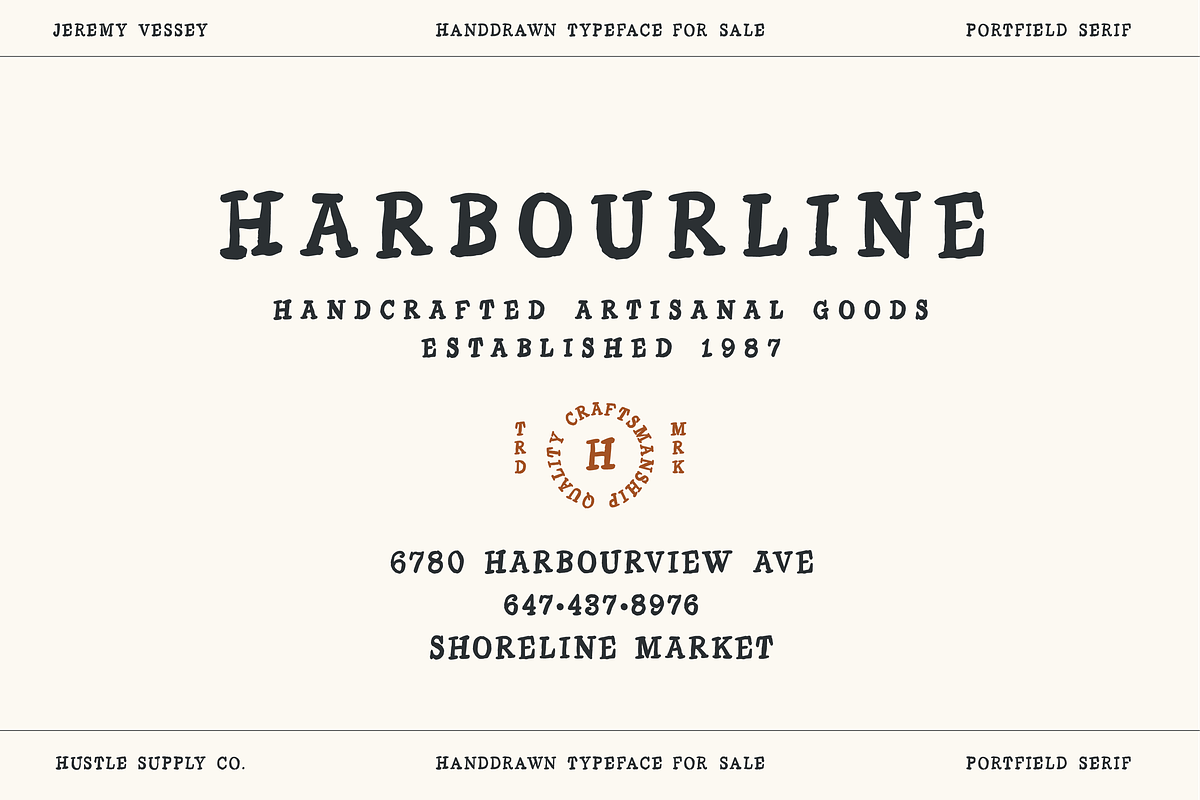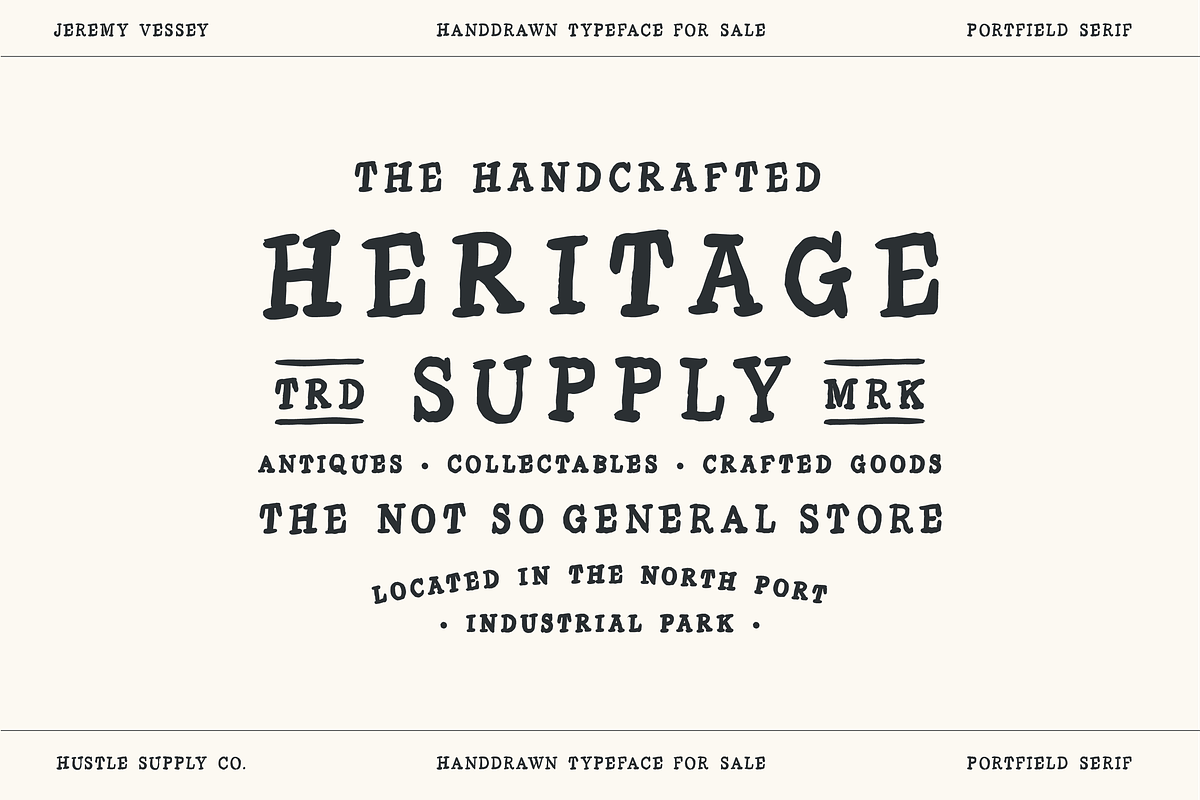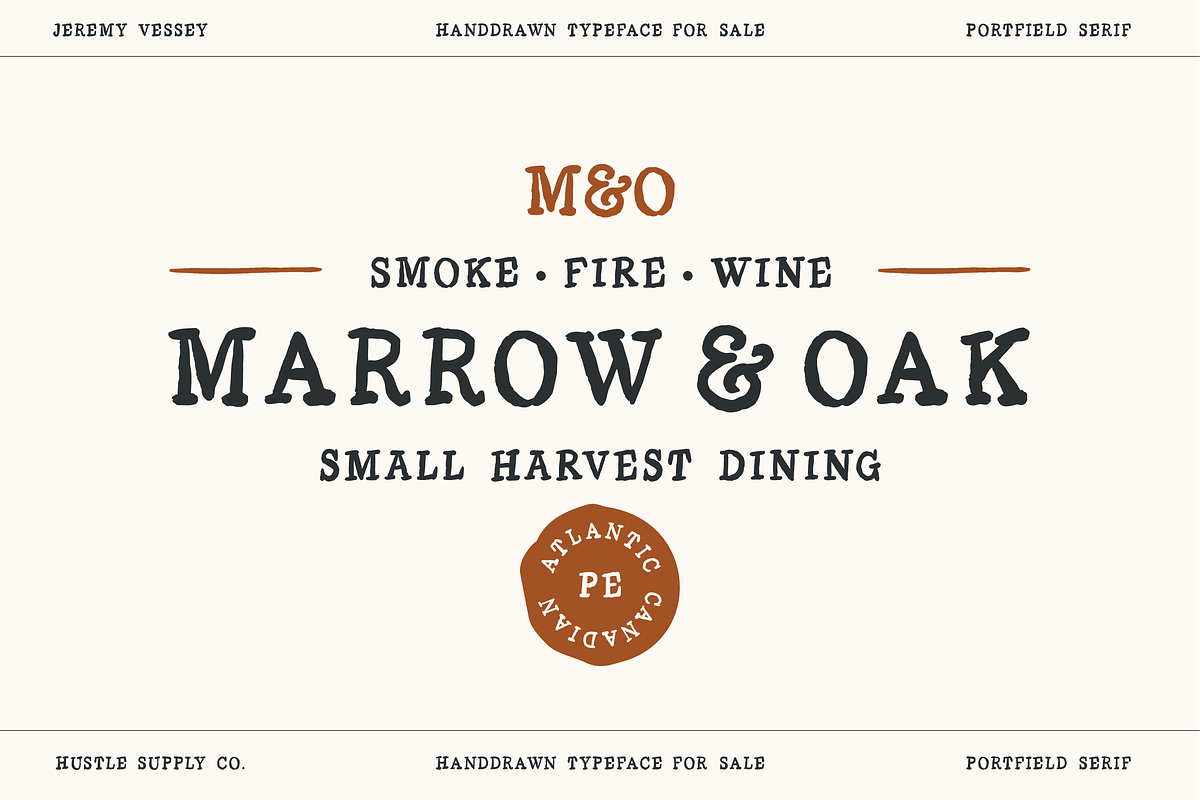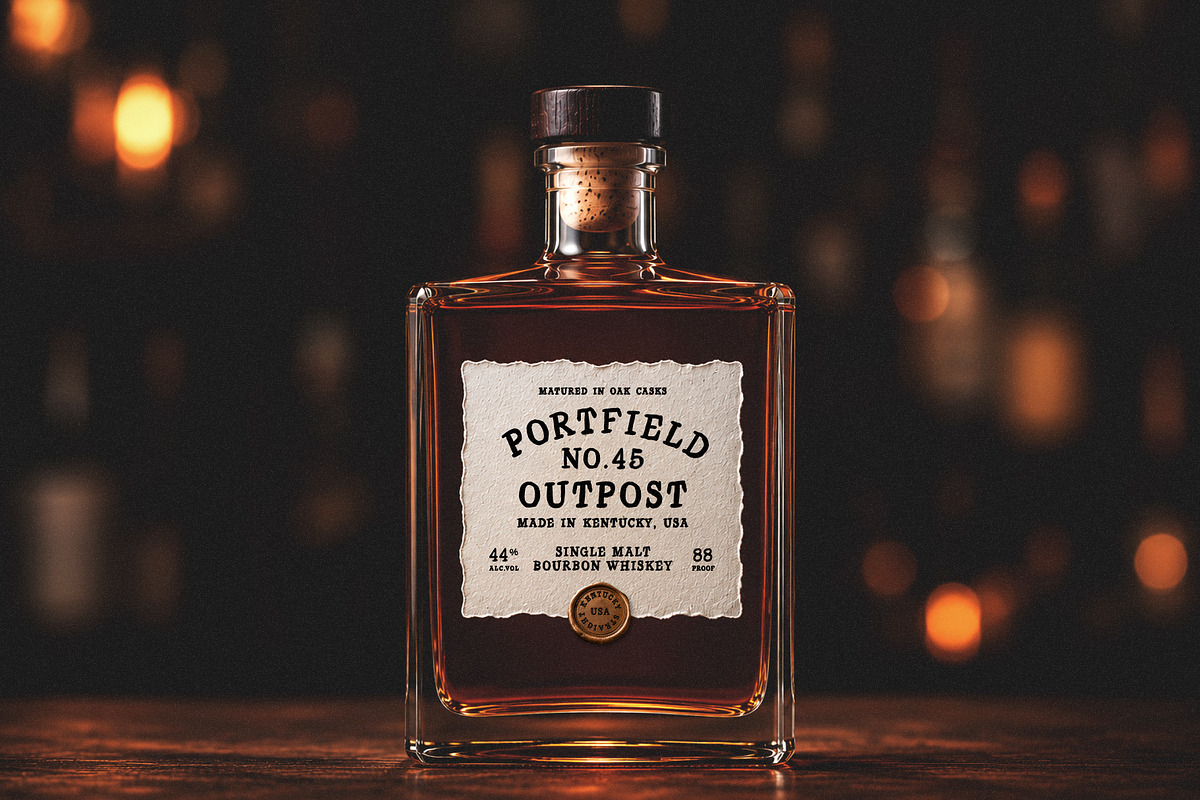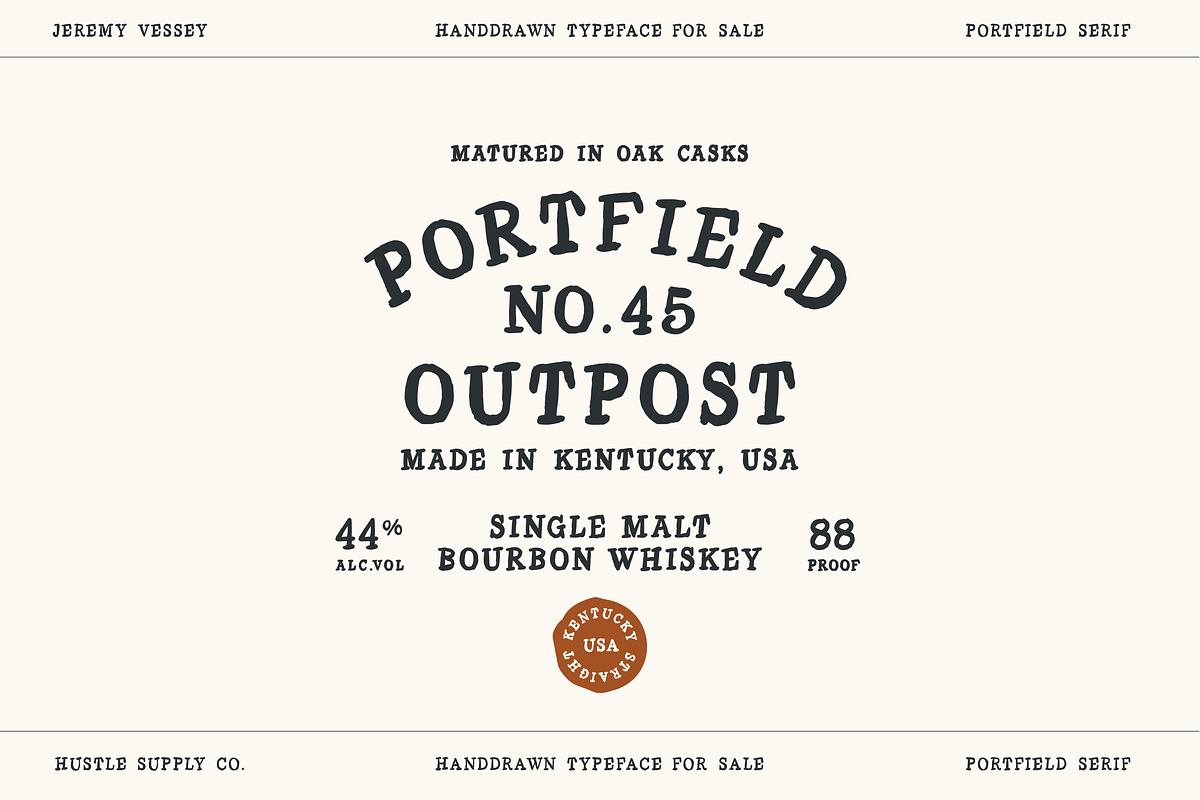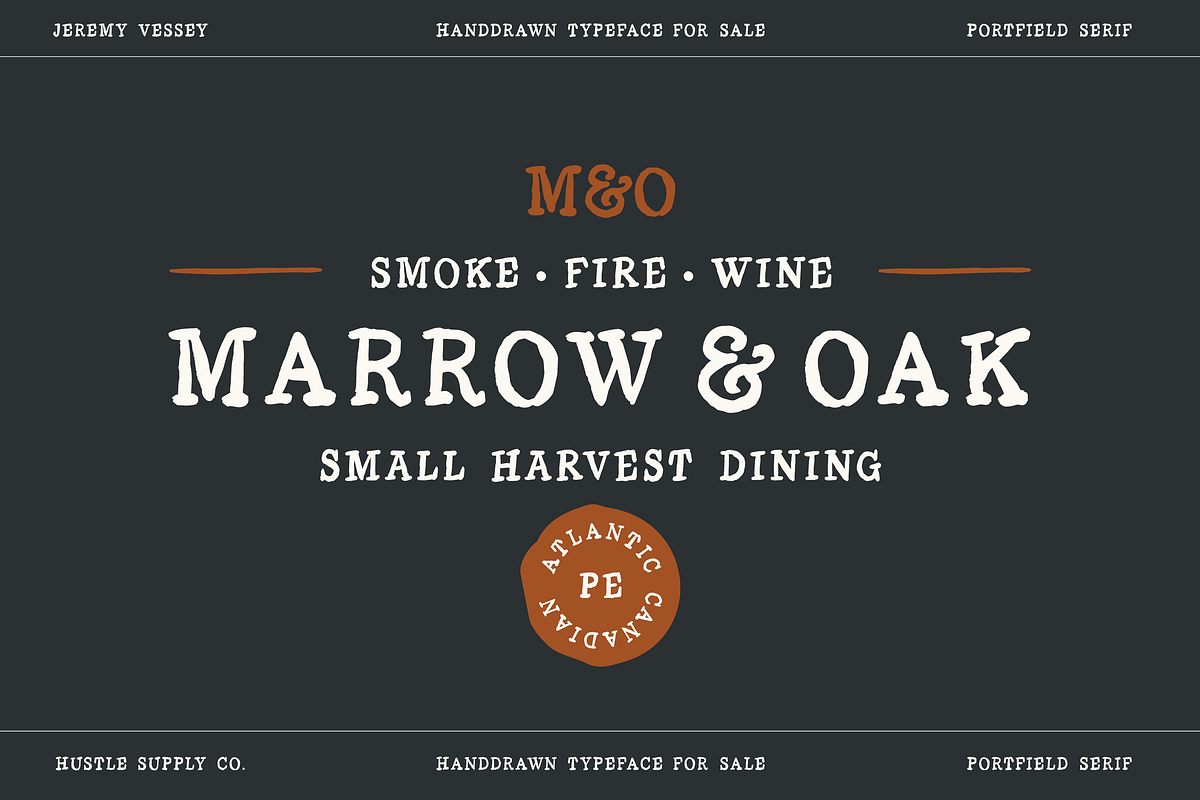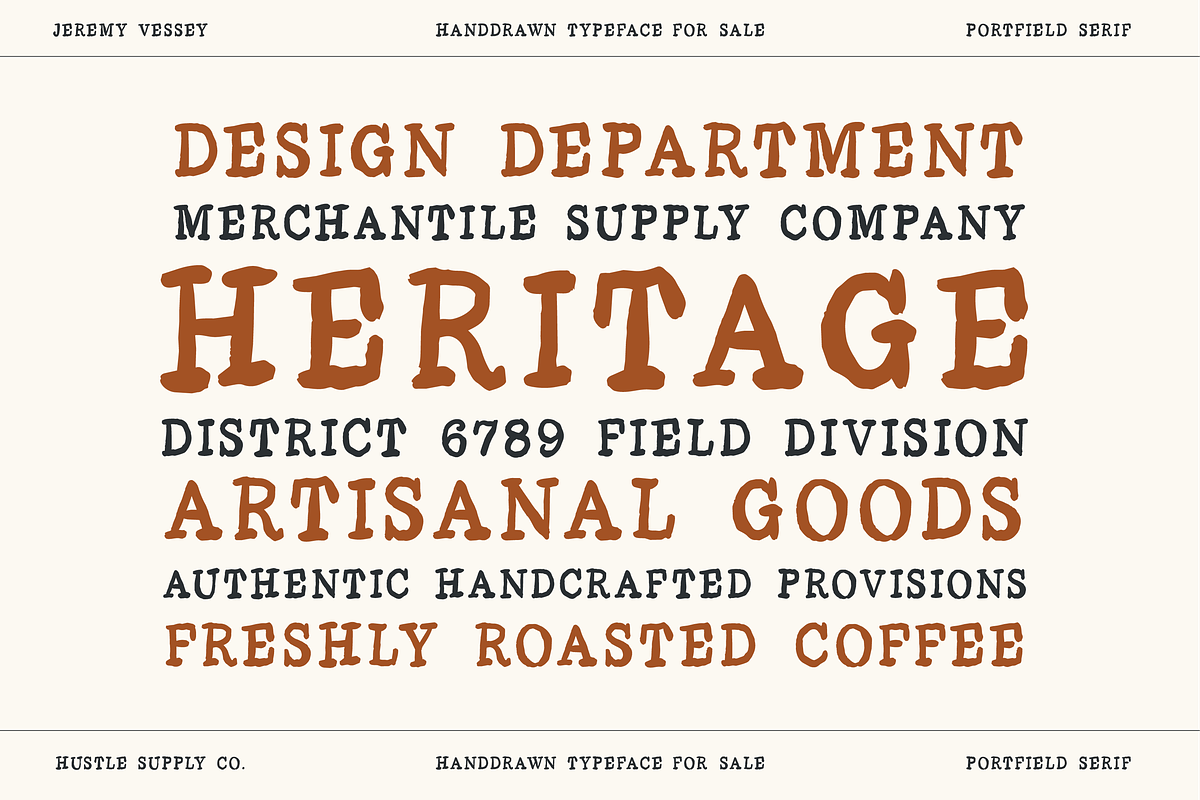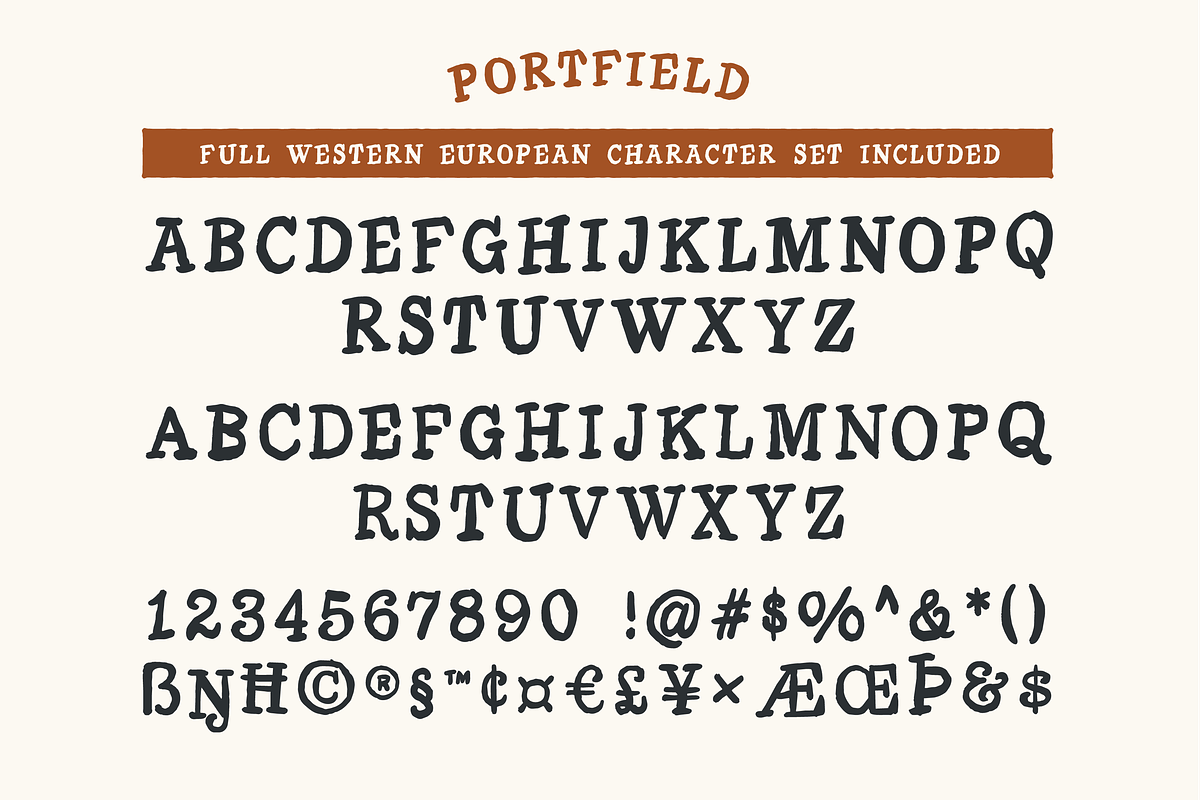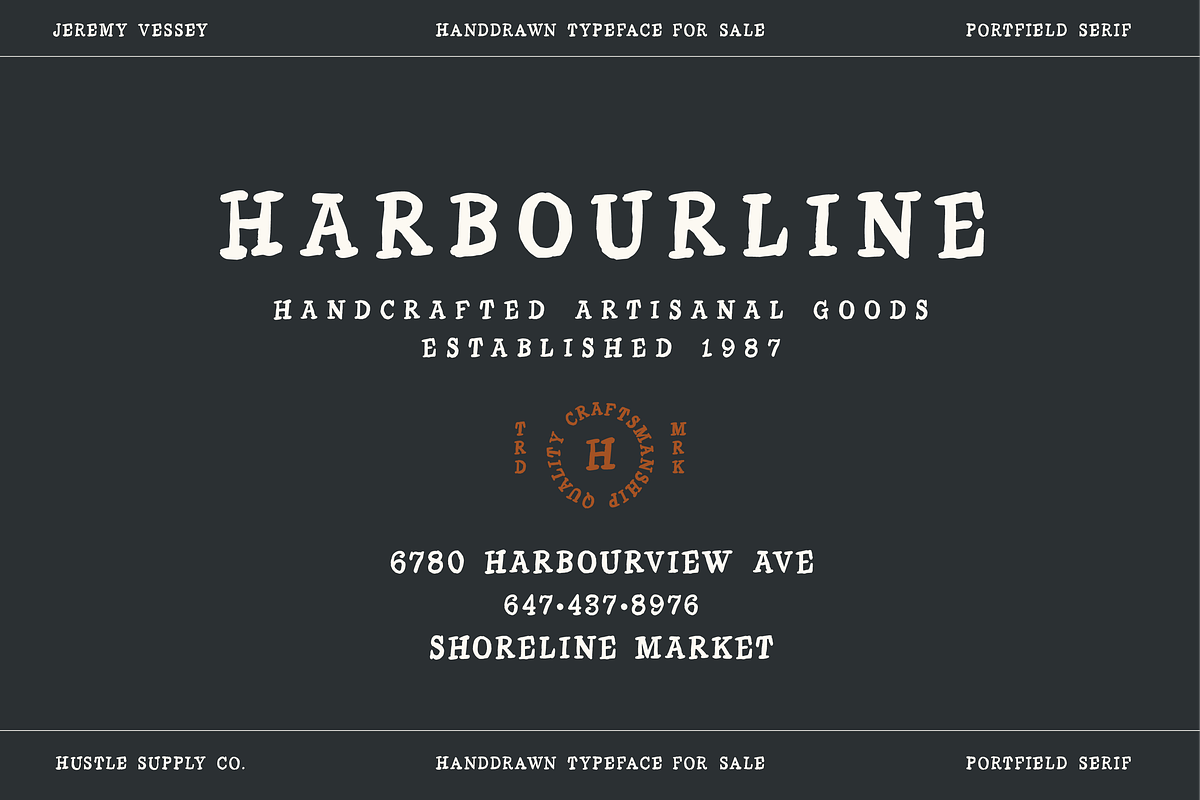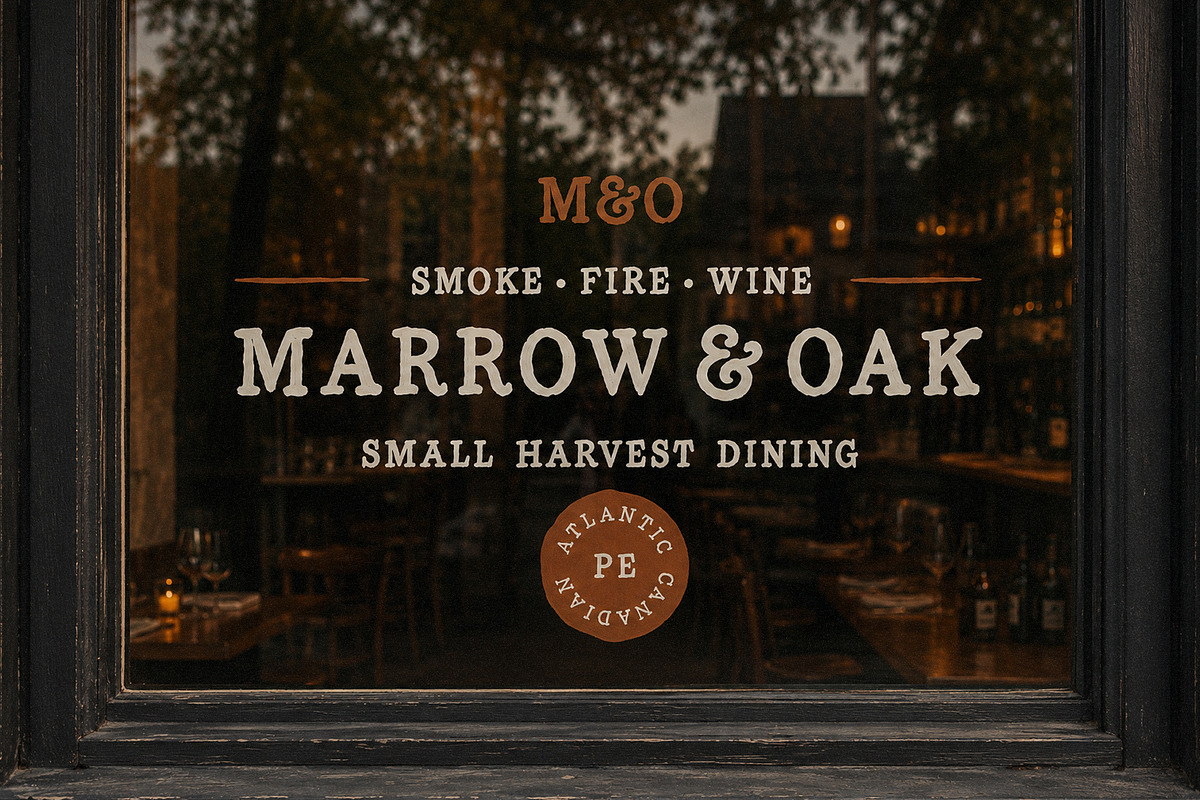
Portfield - A Hand Drawn Serif
Portfield Serif
Portfield Serif is a handcrafted vintage display typeface inspired by old trading posts, heritage storefronts, weathered product labels, and the imperfect typography found on antique packaging.
Designed entirely by hand, Portfield combines sturdy slab-like forms with subtle irregularities that give it warmth, character, and authenticity. Every letter feels carved, stamped, painted, or pressed by human hands rather than constructed by a machine.
The result is a typeface that feels equally at home on a whiskey bottle, artisan food packaging, coffee labels, restaurant branding, farmers market signage, merchandise, apparel, and heritage-inspired logos.
Unlike many vintage fonts that lean heavily into distress effects, Portfield delivers character through its letterforms themselves. The organic curves, slightly uneven contours, and handcrafted proportions create a timeless aesthetic while remaining highly legible at both large and medium display sizes.
Logos & Branding
Restaurant Identity Systems
Coffee Packaging
Whiskey & Spirits Labels
Craft Beer Branding
General Store & Mercantile Designs
Artisan Product Packaging
Farmers Market Branding
Apparel Graphics
Sign Painting Styles
Vintage Posters
Product Labels & Tags
Editorial Headlines
Heritage-Inspired Design Projects
Uppercase Characters
Lowercase Characters
Western European Language Support
Currency Symbols
Alternate Character Styling Through Uppercase & Lowercase Sets
Handcrafted Letterforms
The Personality
Portfield sits somewhere between a traditional slab serif, a vintage wood type specimen, and an old hand-painted sign.
It carries a rugged confidence without feeling overly masculine, a rustic warmth without becoming cliché, and enough refinement to work in modern branding projects while still feeling rooted in history.
Whether you're designing a bourbon label, a coastal restaurant identity, a heritage-inspired coffee brand, or a handcrafted product line, Portfield brings authenticity and character to every word it touches.
Uppercase Character Set
Lowercase Character Set
Western European Language Support
Bring a little craftsmanship back into your typography with Portfield Serif.